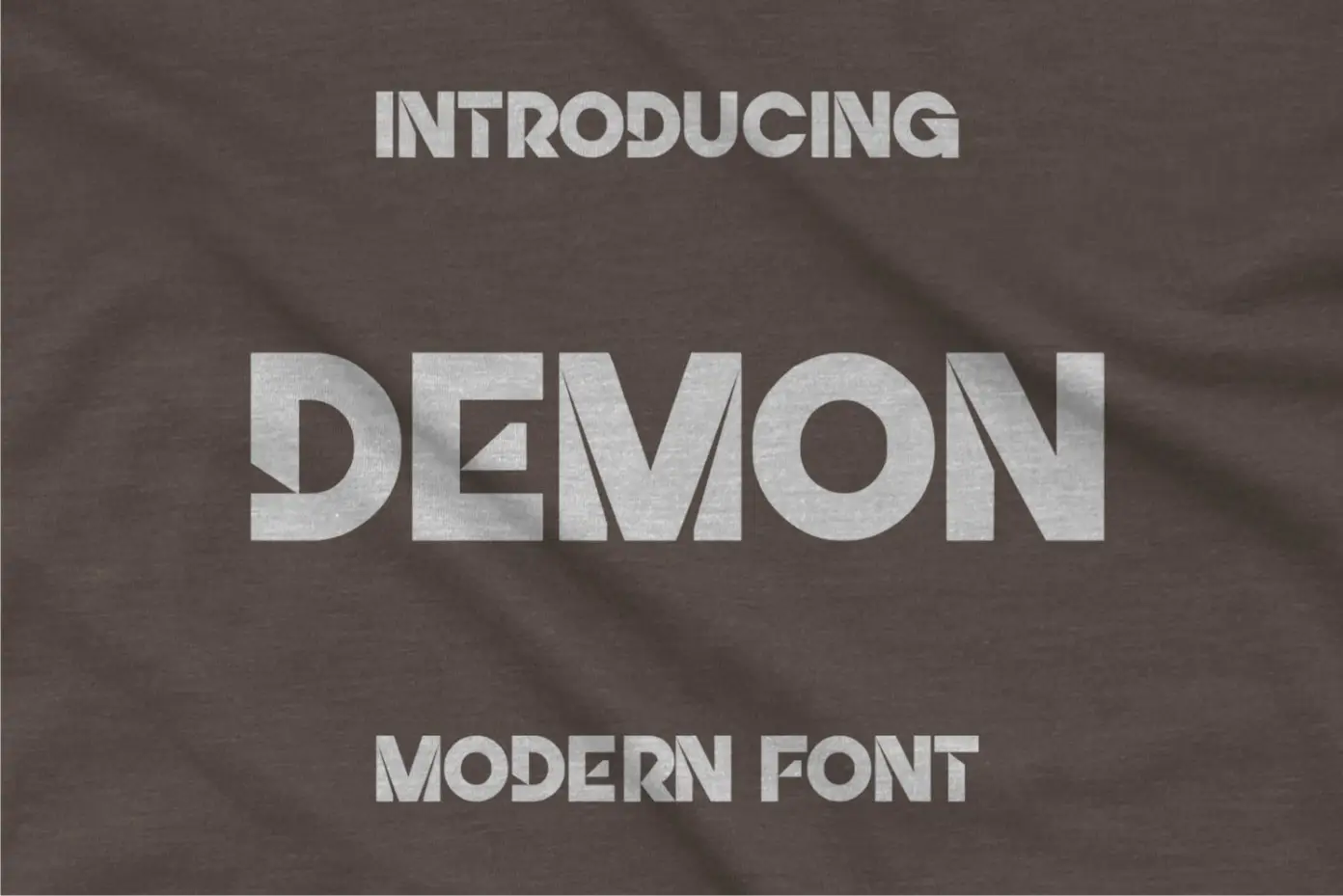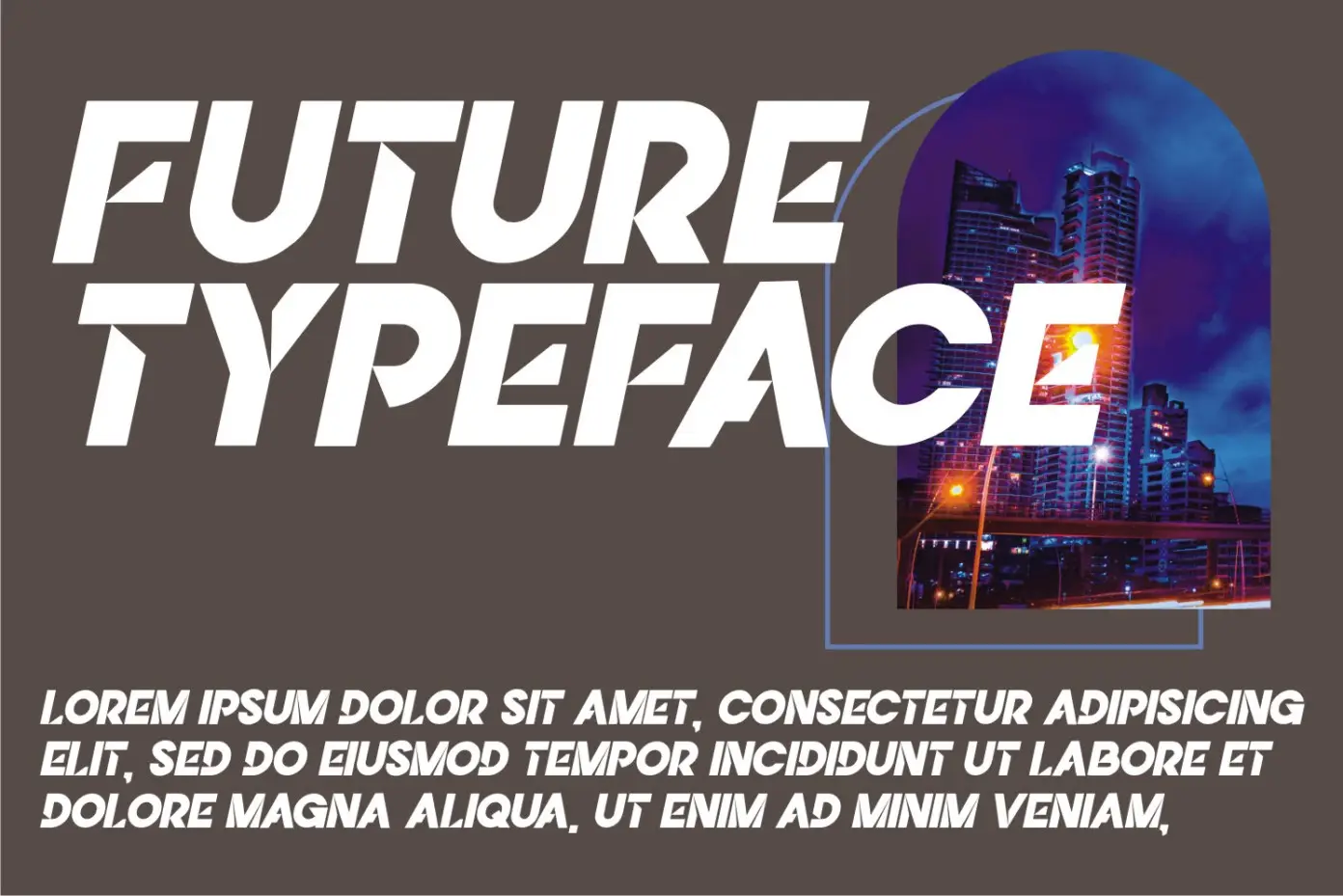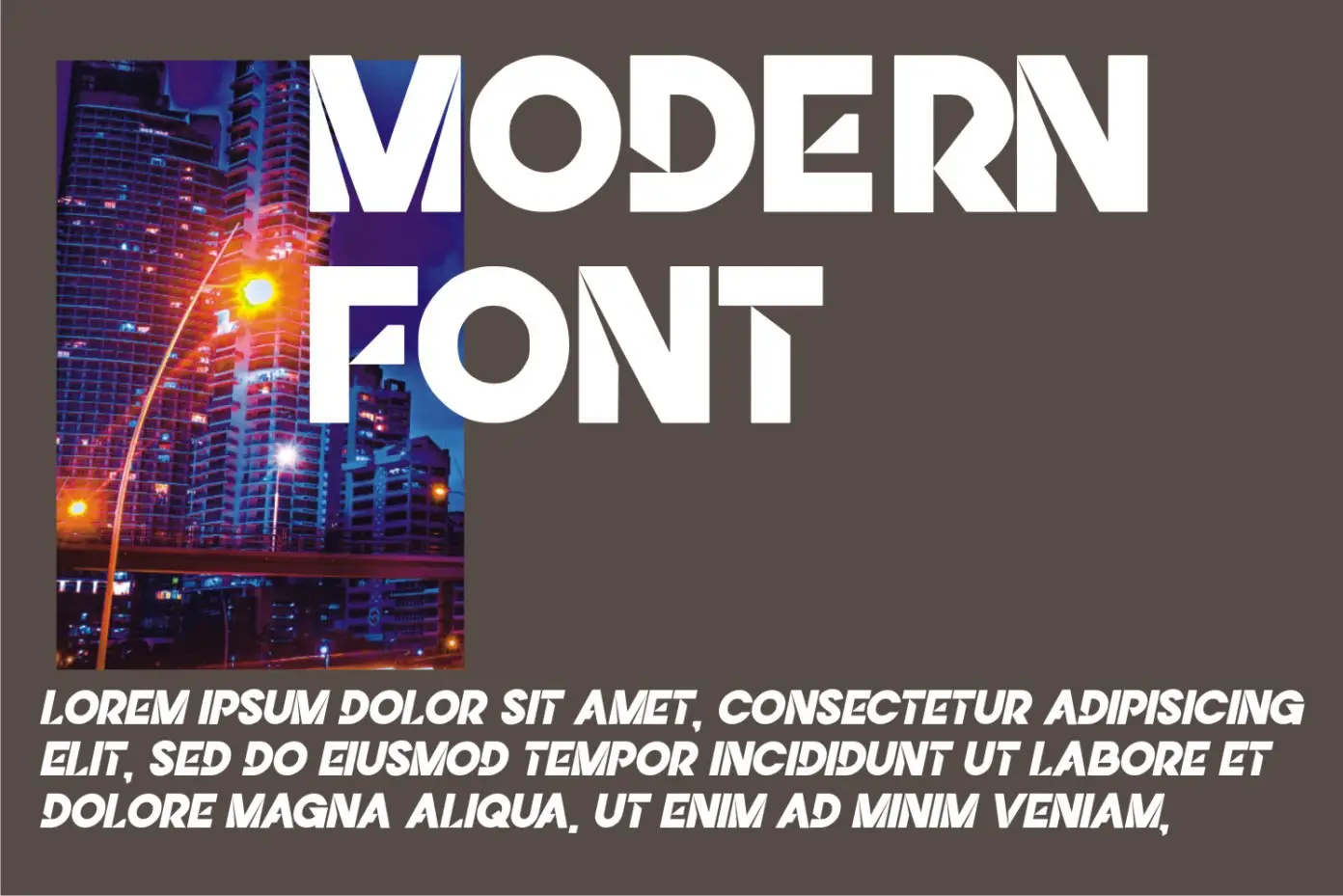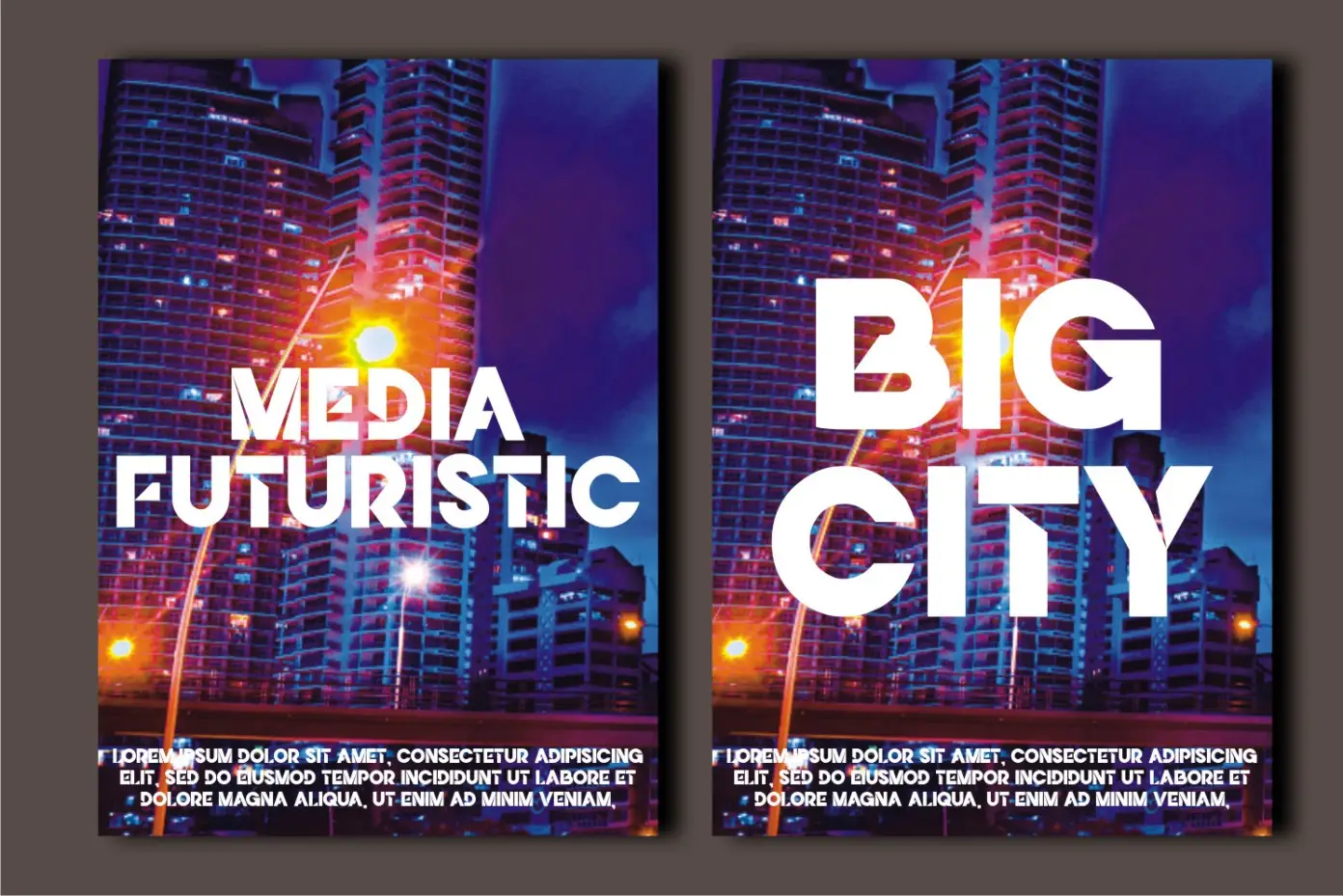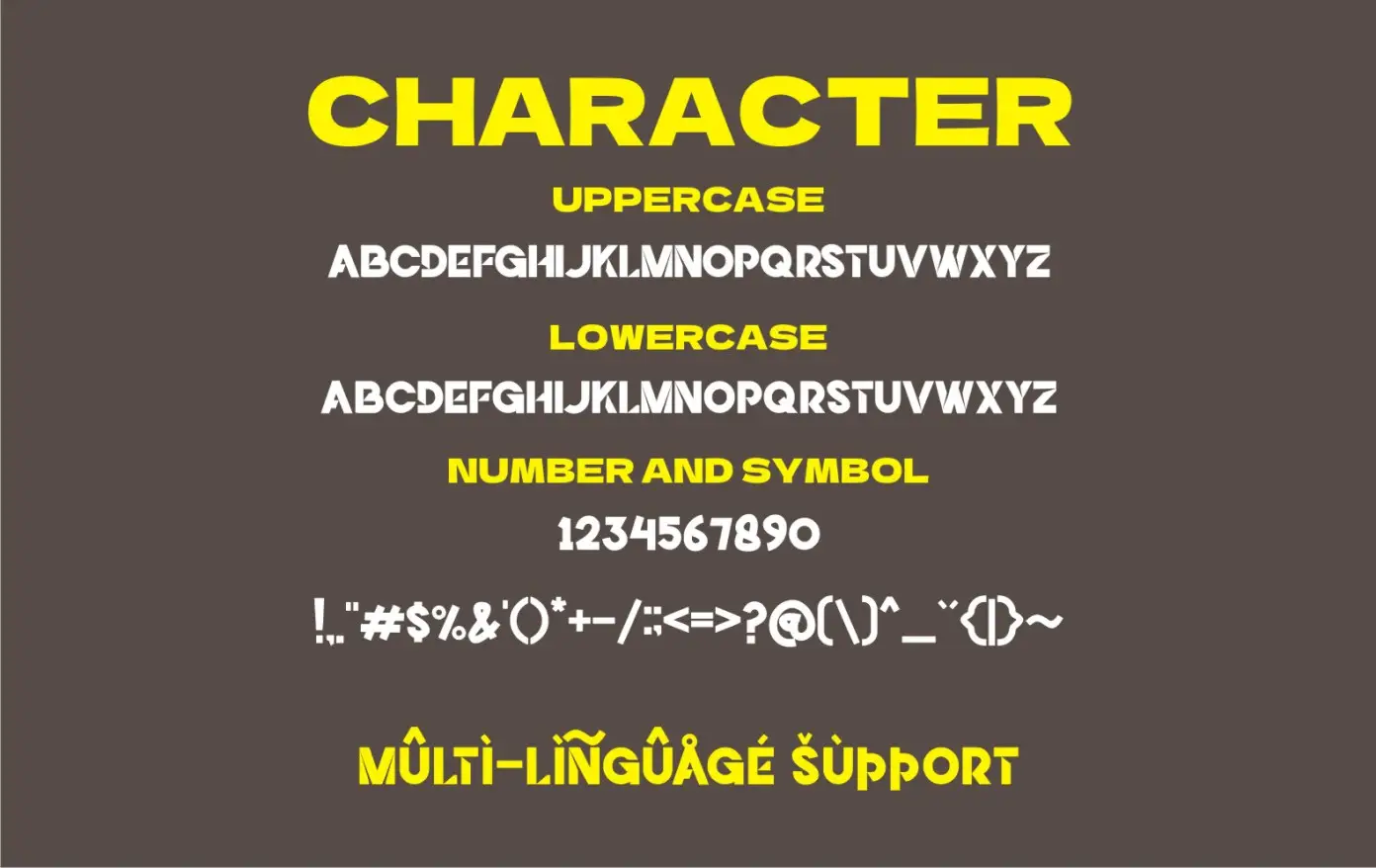
Demon Display Font
The Demon Display Font is a striking typeface designed to captivate and command attention. With its bold and unique character shapes, this font is perfect for a variety of creative projects, including branding, logos, posters, and more.
• Stylish display font with a distinctive design
• Uppercase and lowercase letters included
• Numerals and punctuation marks
• Multiple weights available for versatility
Utilize the Demon Display Font for eye-catching headlines, promotional materials, and any project that requires a bold statement. Its unique style makes it ideal for both digital and print applications.